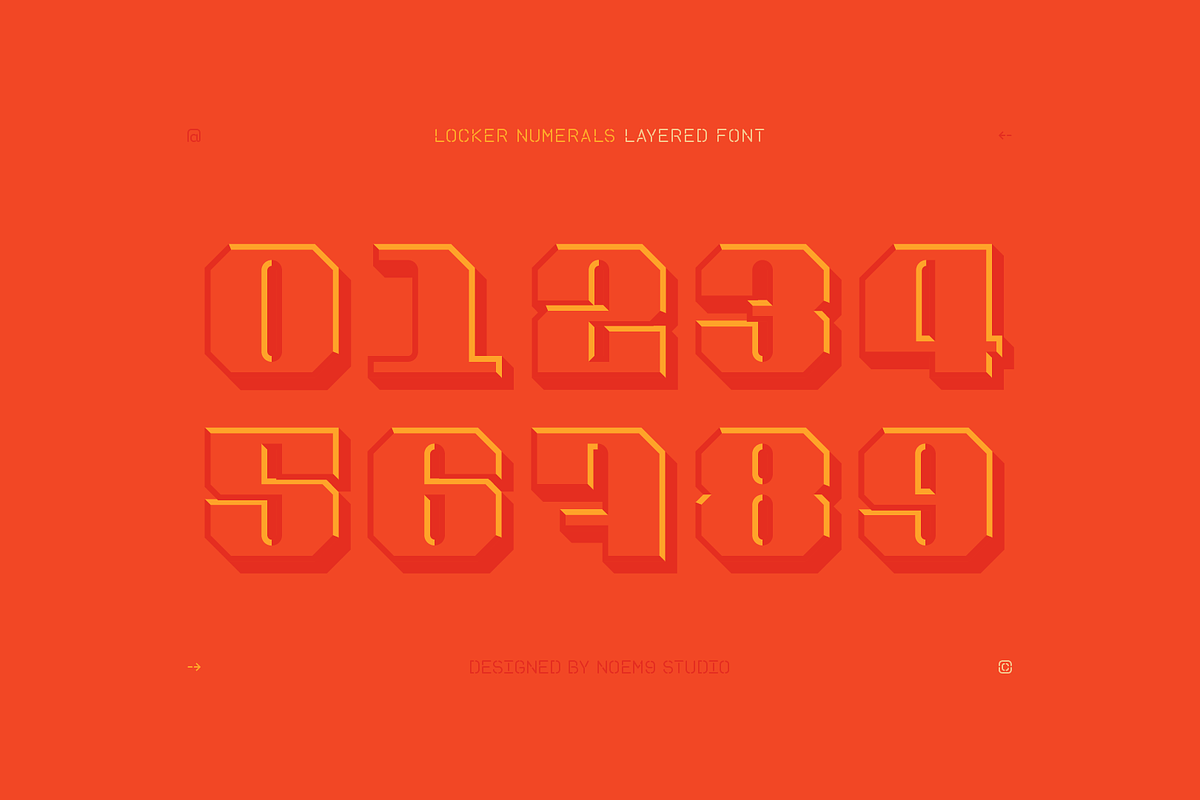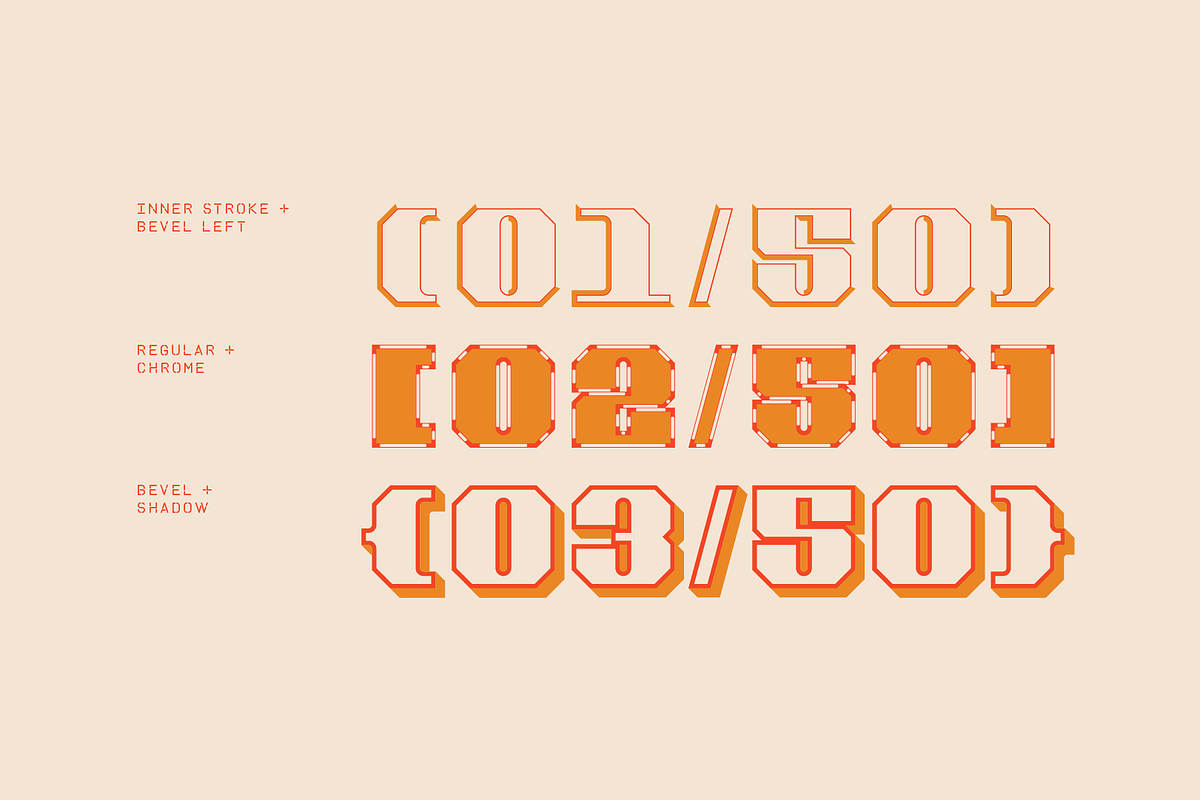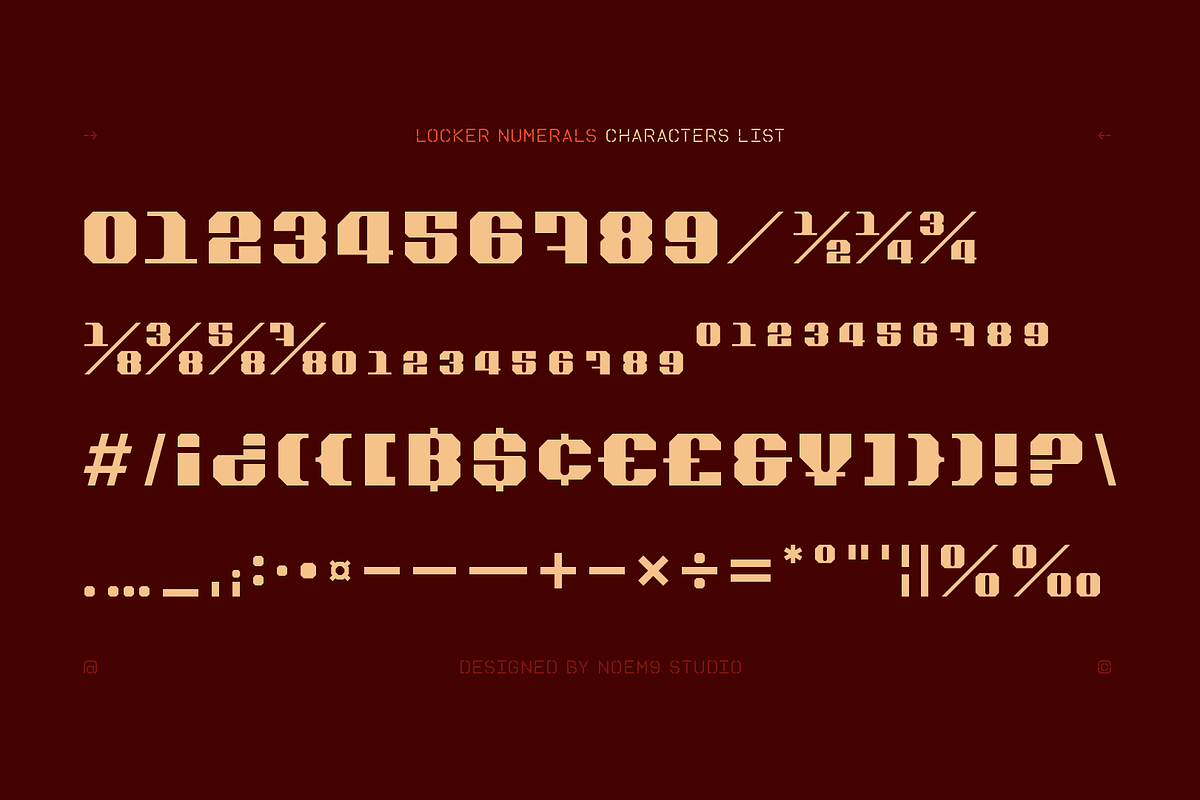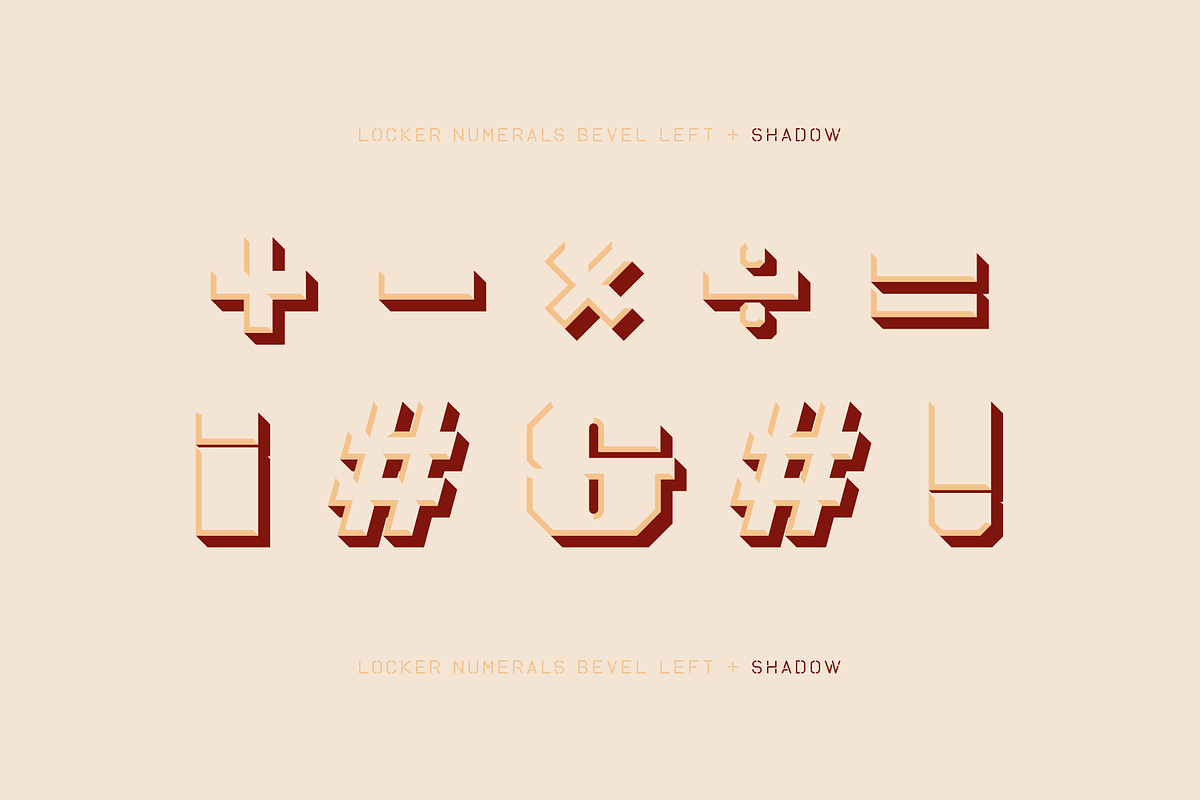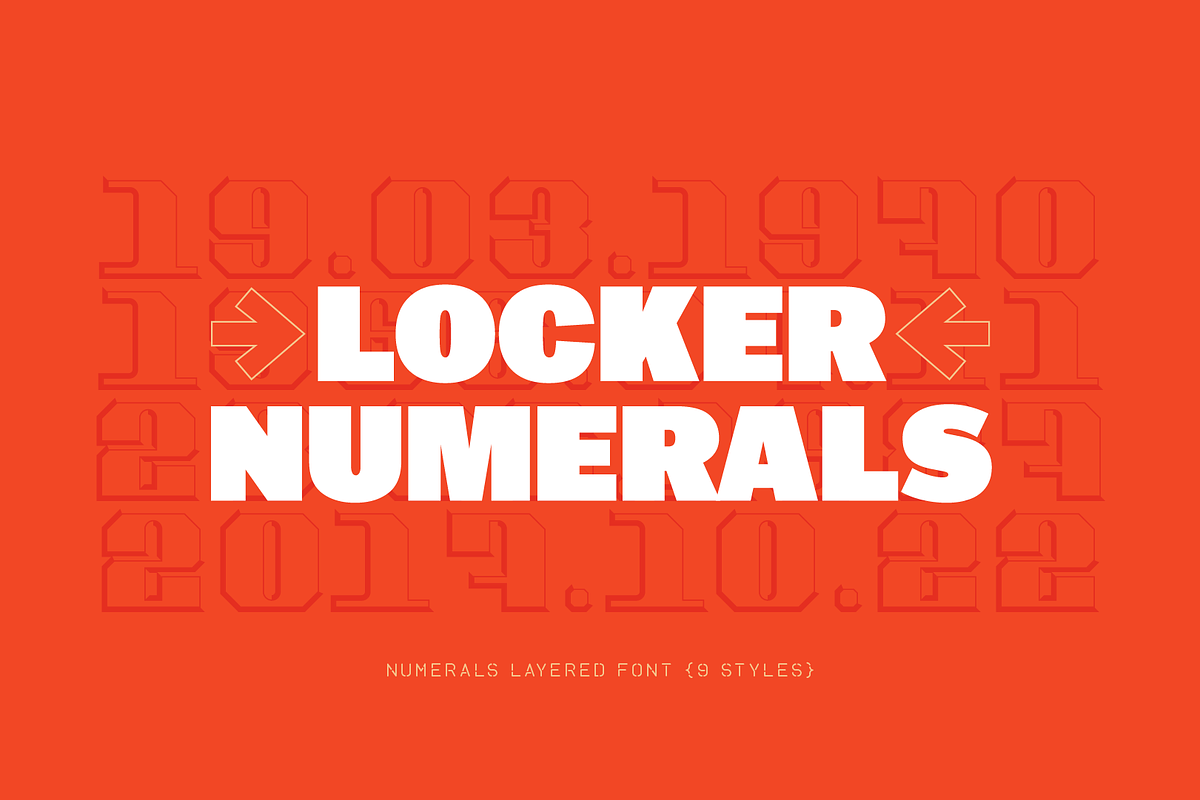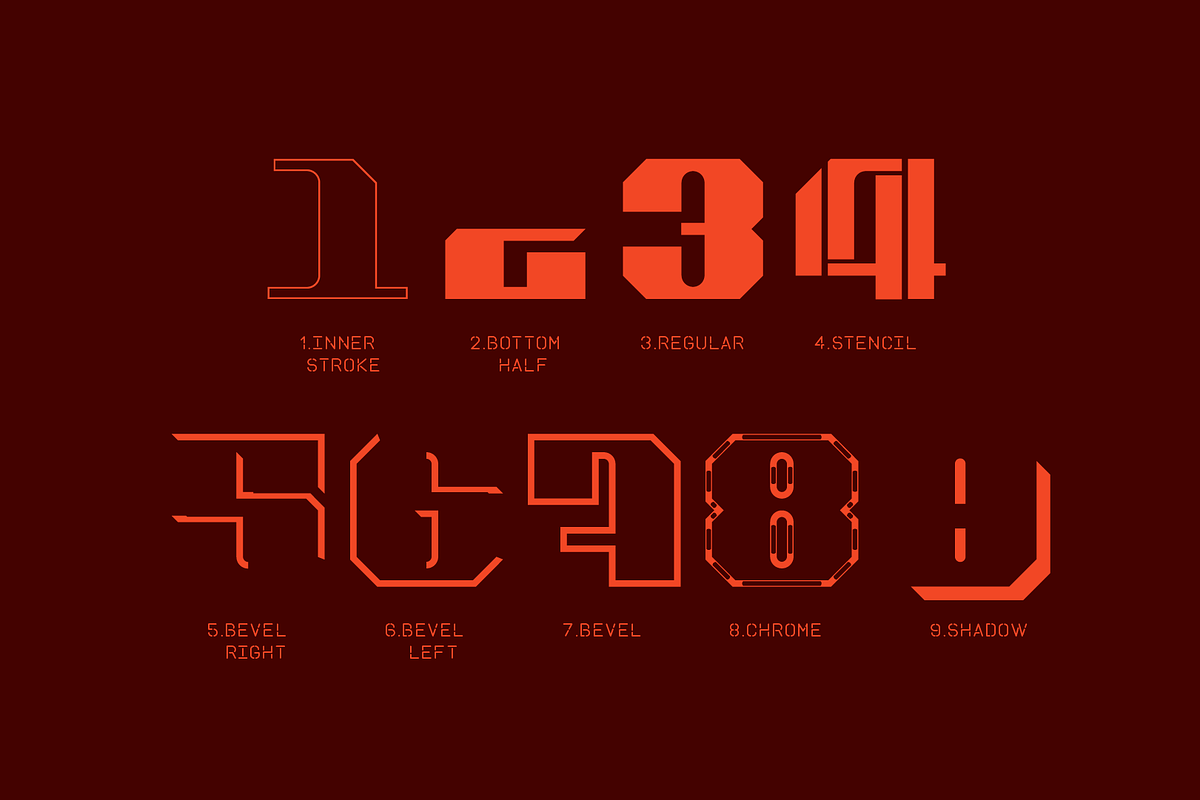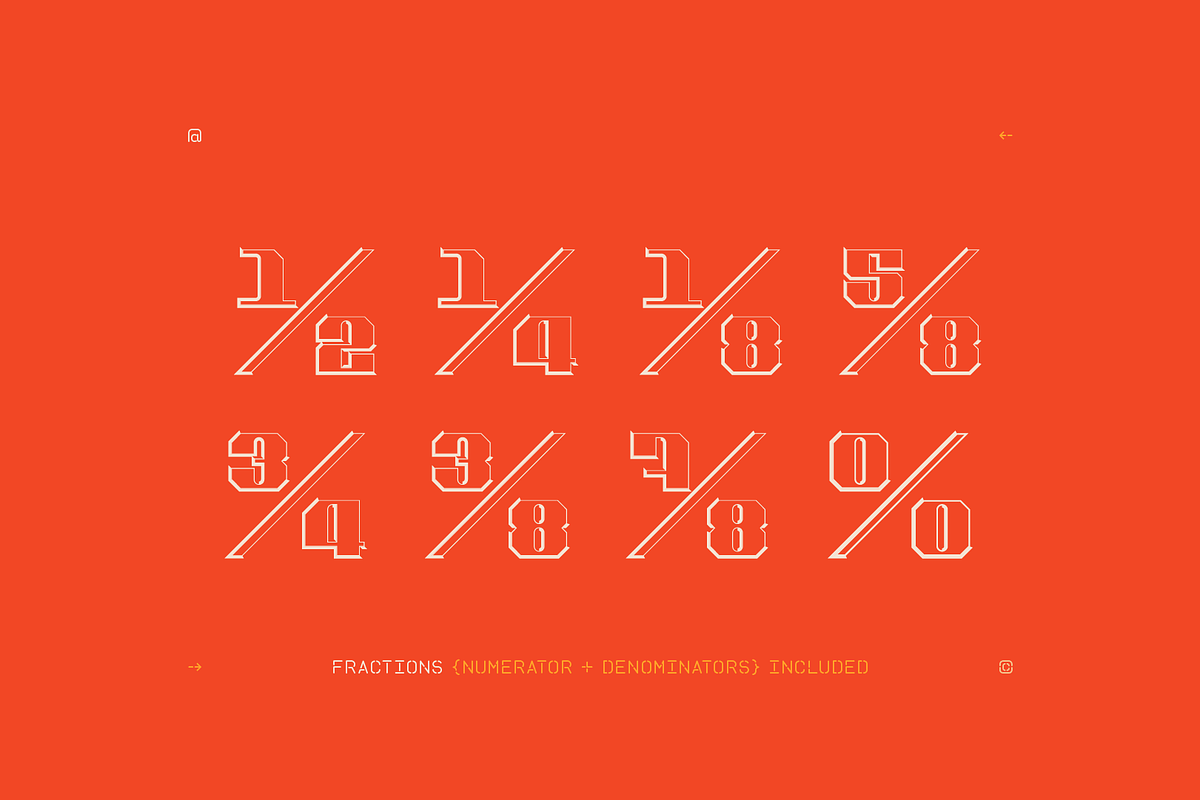
Locker Numerals Color Font
Locker is a color font with a geometric structure inspired by sports design. It includes numbers, symbols and punctuation. Its potential is increased with the 9 styles which offer different moods.
It comes with 9 different styles: Inner Stroke, Bottom Half, Regular, Bevel Left, Bevel Right, Bevel, Chrome, Shadow & Stencil that you can select and/or stack together depending on your needs.
◊ More than 100 Glyphs
◊ 9 Styles (Inner Stroke, Bottom Half, Regular, Stencil, Bevel Left, Bevel Right, Bevel, Chrome, & Shadow)
◊ Punctuation & Currency Symbols
◊ Fractions (Numerators & Denominators)
◊ Lining & Tabular Figures